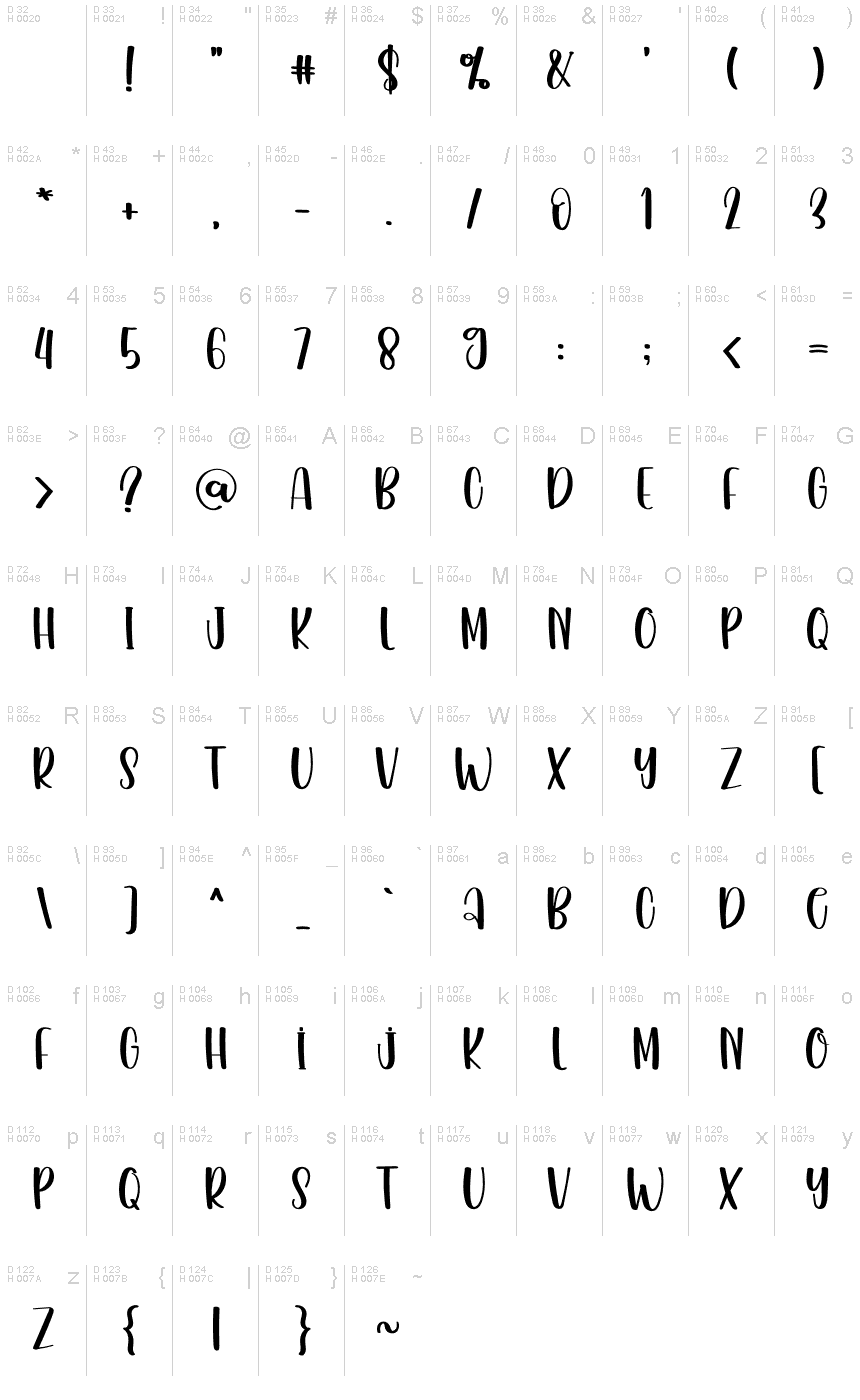
Rich
Meet Rich, a lovely handwritten font designed by Inermedia Studio. With its semi-light weight and extra-condensed width, this font brings a touch of elegance to any project.
Perfect for wedding invitations, love letters, or romantic greeting cards, Rich adds a personal and heartfelt feel to your designs. Its delicate strokes and graceful curves create an intimate atmosphere that captures the essence of love and beauty.
Let Rich be your go-to choice when you want to infuse tenderness and warmth into your next creative endeavor.